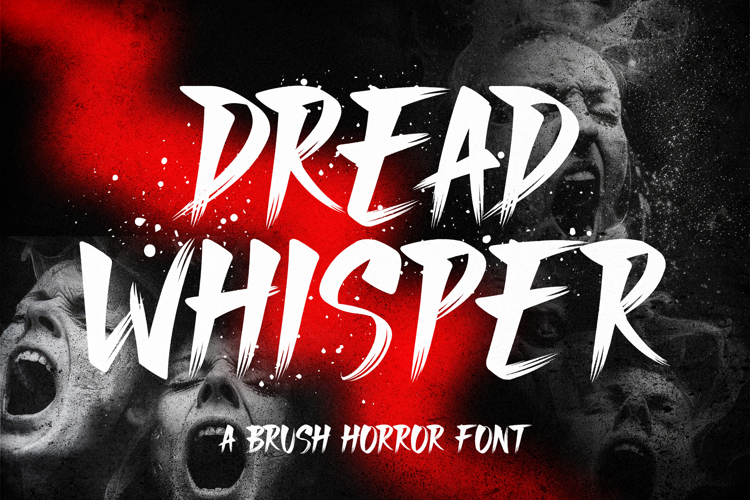
Dread Whisper - A Horror Brush Font
Dread Whisper is a spine-chilling horror brush font that brings your darkest nightmares to life. With its jagged strokes and eerie presence, this font is crafted for those who want to evoke fear and suspense in their designs.
🔪 Terrifying Texture: The rough, hand-drawn strokes of Dread Whisper create an unsettling atmosphere, perfect for horror movie posters, haunted house flyers, or Halloween-themed designs. Each letter drips with tension, adding a visceral impact to your text.
🕸️ Sinister Style: This font's uneven, scratchy appearance captures the essence of horror, making it an ideal choice for projects that need a touch of the macabre. The chaotic brushwork mimics the look of something scratched into a wall in a moment of terror.
💀 Unnerving Versatility: Whether you're crafting a chilling book cover, a spooky event invitation, or a dark-themed logo, Dread Whisper adapts to your needs, infusing each design with a sense of dread and anticipation.
Dread Whisper isn’t just a font; it’s a tool to conjure fear, making it perfect for any design that seeks to leave a lasting, haunting impression.